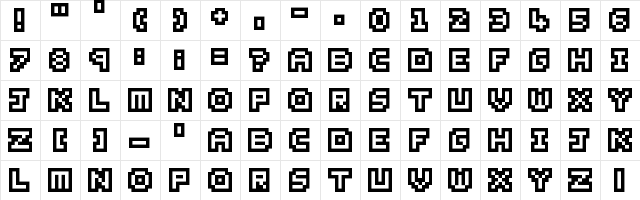
Pixel Inversions Regular
Design Context for Pixel Inversions Typeface
Pixel Inversions is rooted in pixel-grid construction, making it a natural fit for game UI, retro computing aesthetics, and digital nostalgia projects.
Well-suited to indie game interfaces, retro computing aesthetics, and pixel art-adjacent design work.
Pro Tip: Use Pixel Inversions at sizes that align with its pixel grid for the sharpest rendering — scaling to non-integer multiples can introduce unwanted blur.